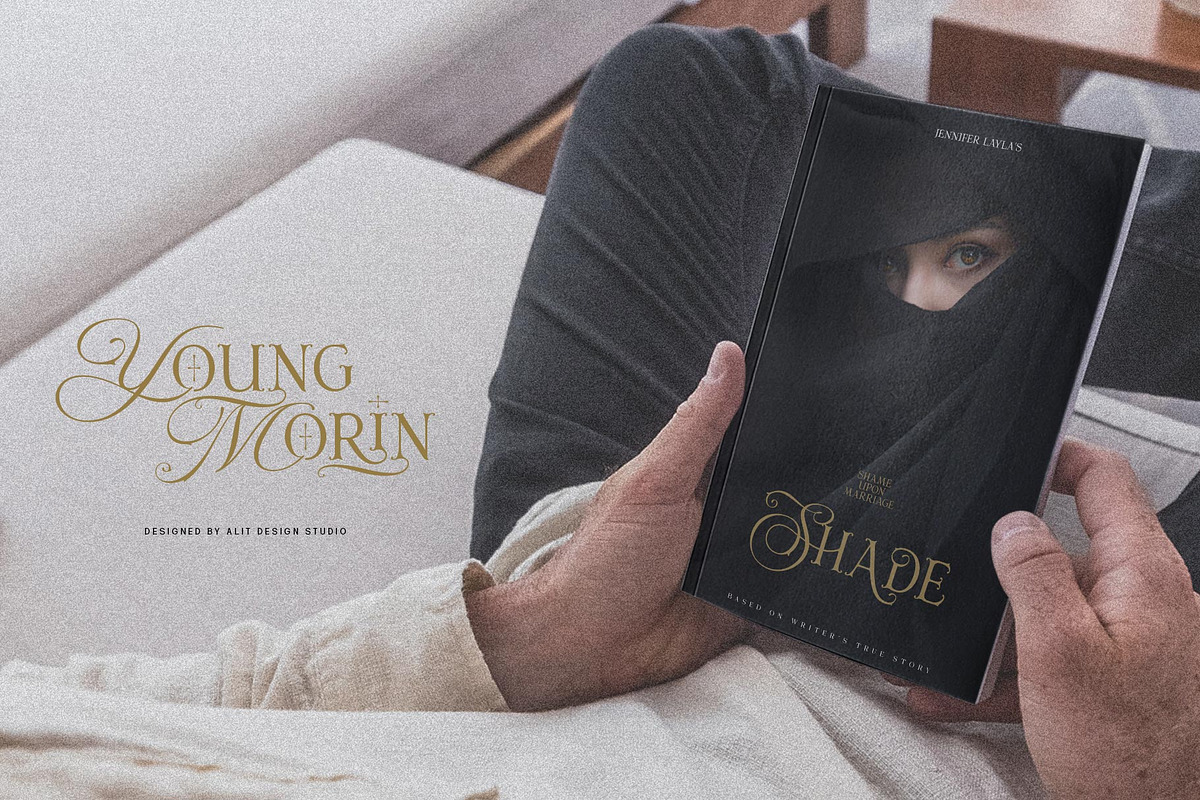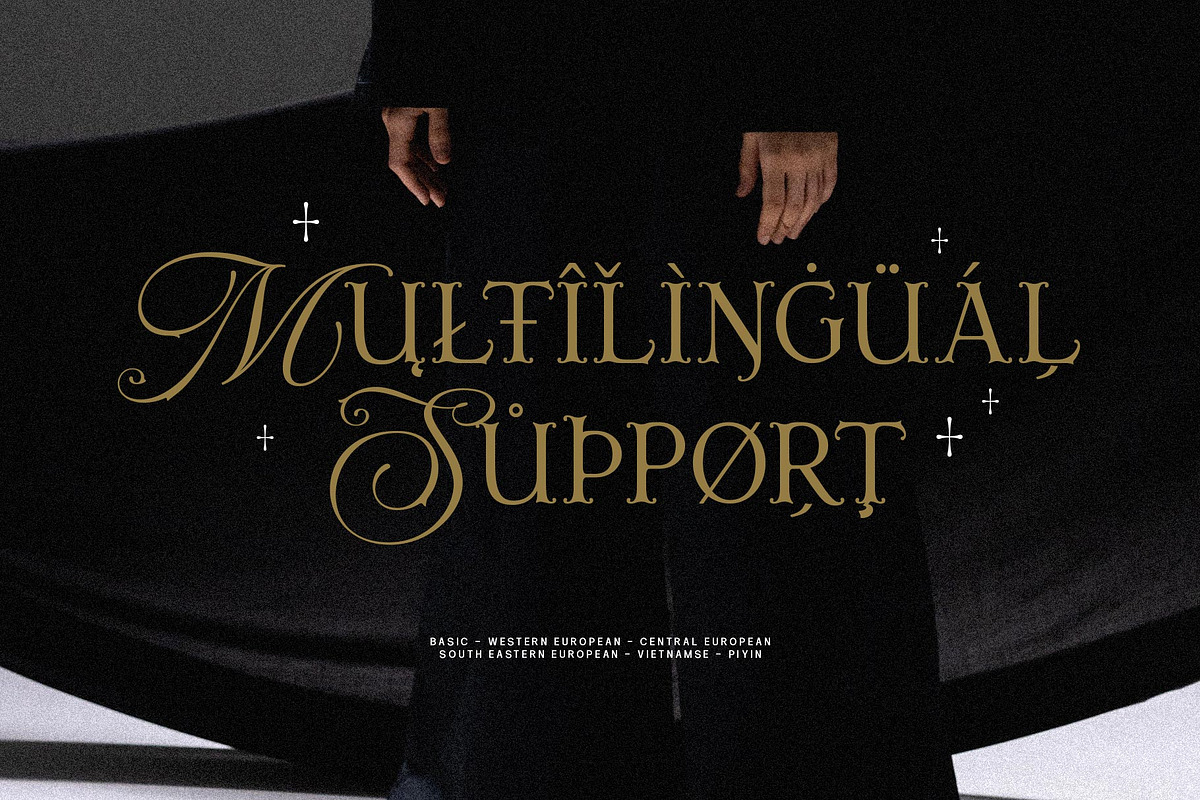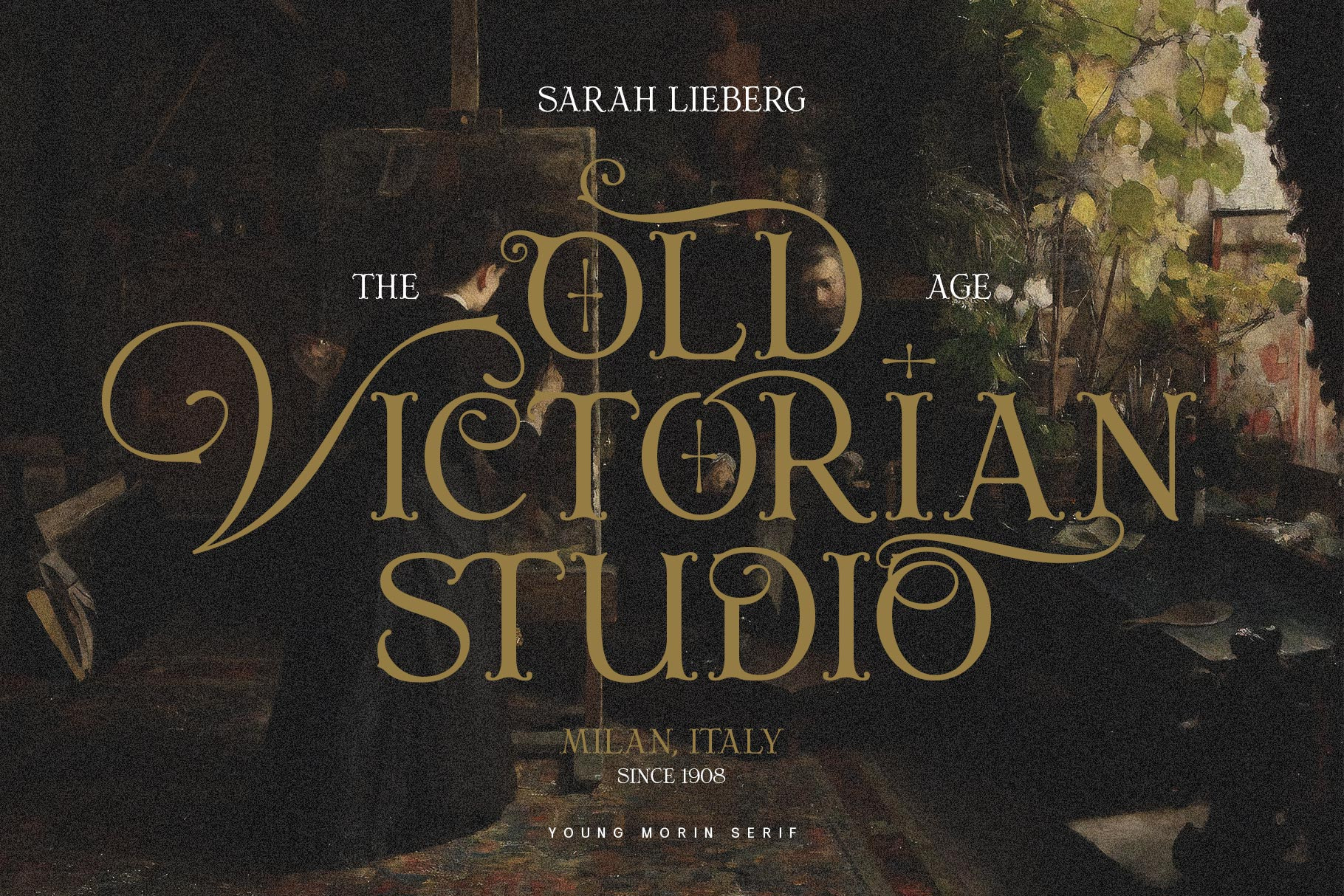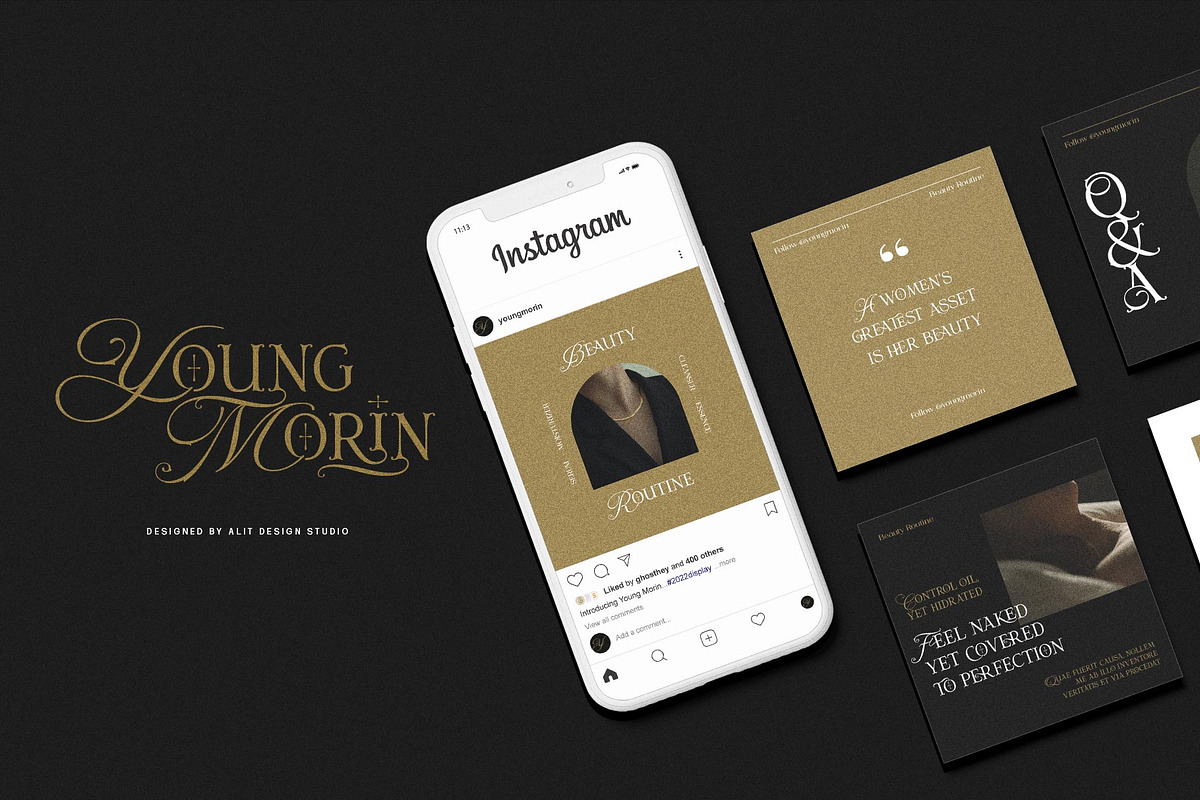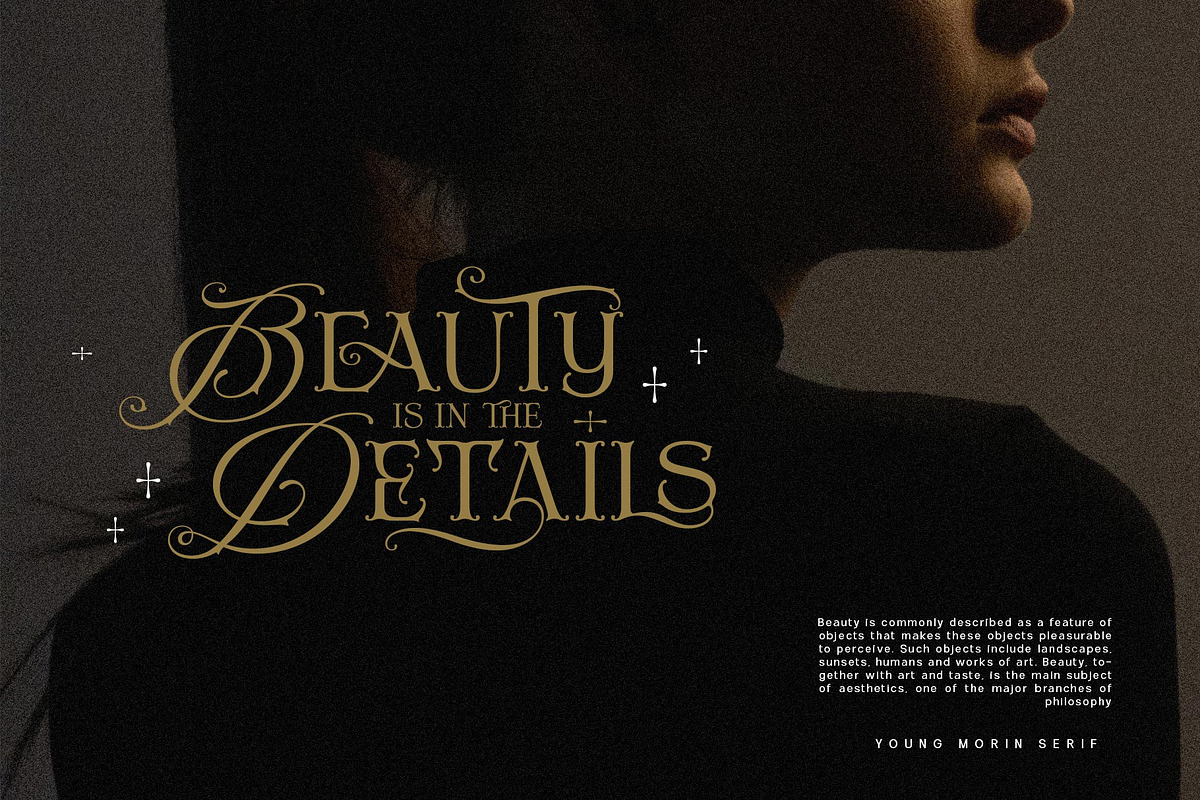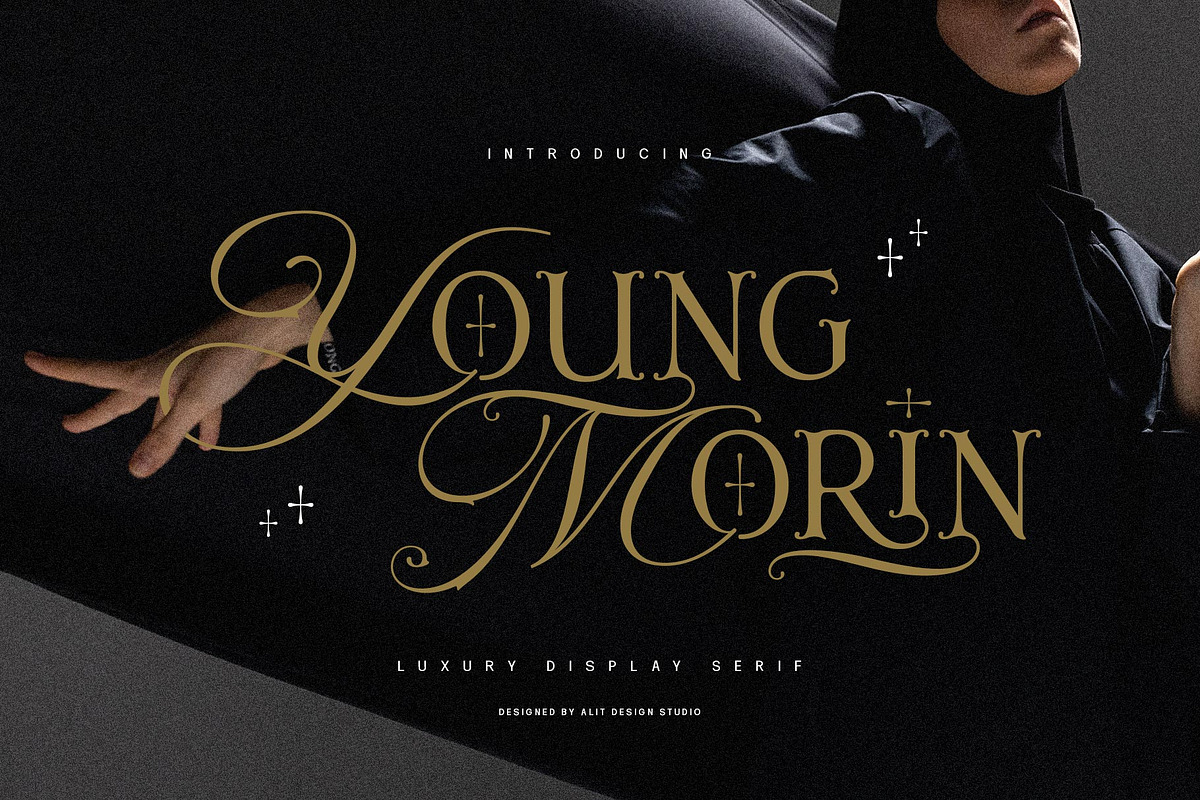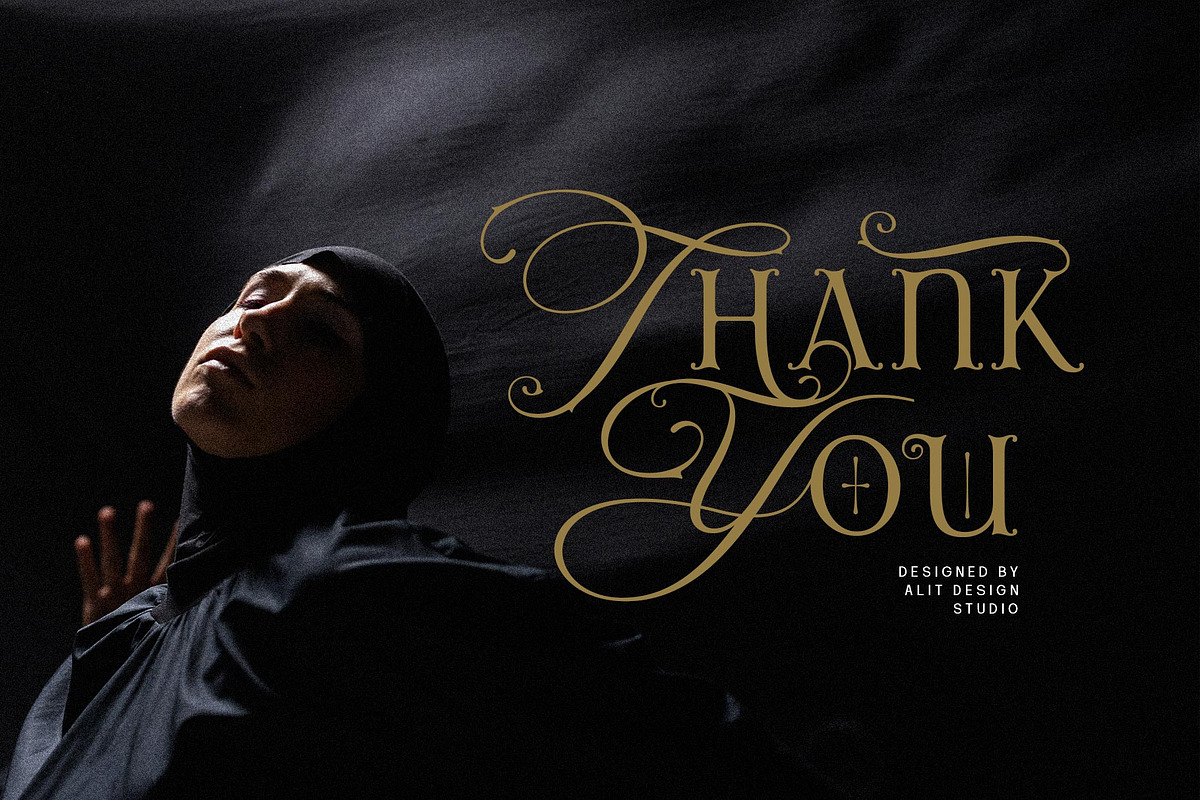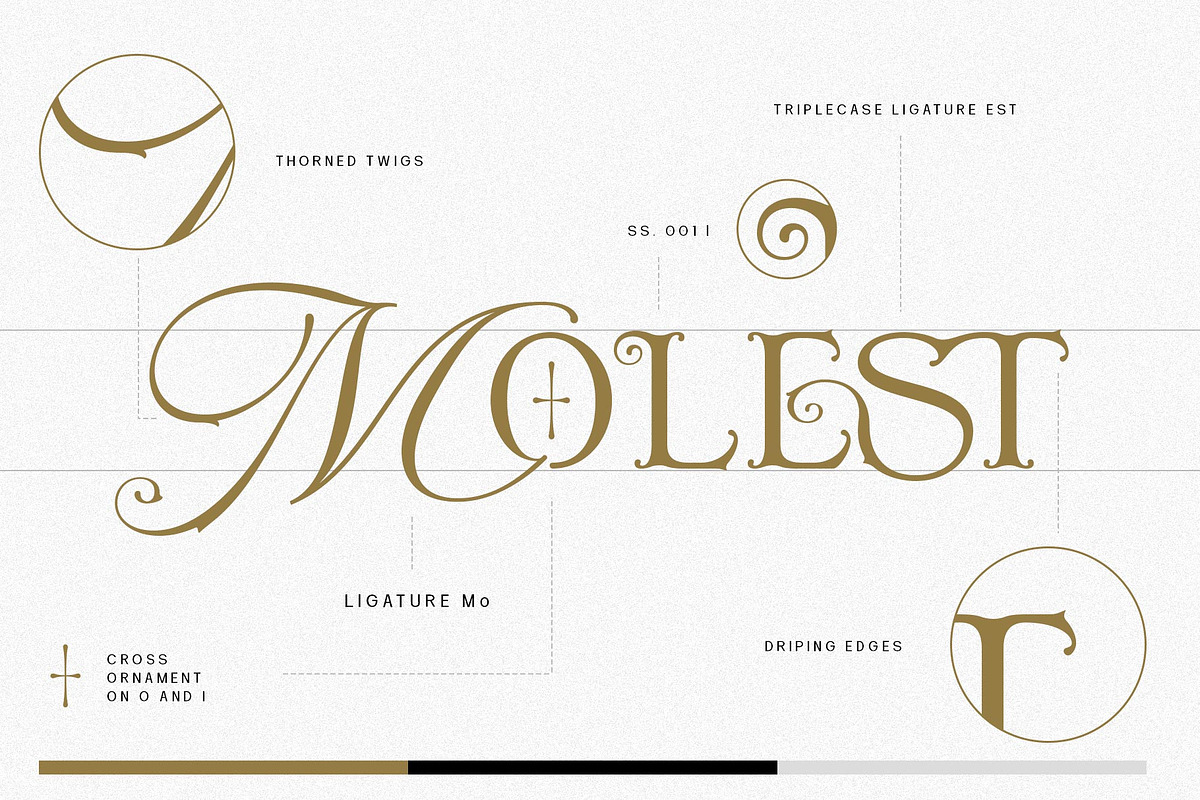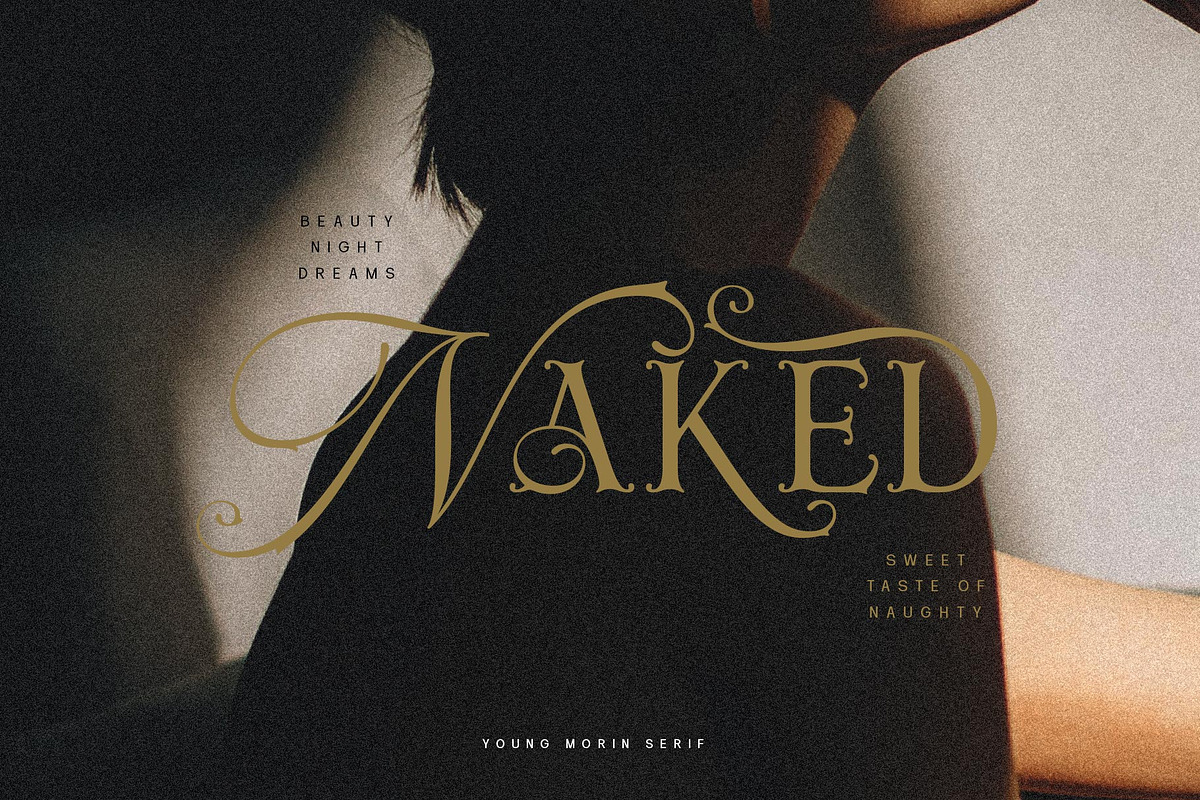
Young Morin Typeface
Presenting the Young Morin typeface from alitdesign.
Young Morin font is designed by combining elegant script font with a classic serif font style. The Young Morin font is inspired by a classic roman design that we apply modern elements according to current trends. This bold classic concept will create a design that is frightening but still looks modern and elegant. The Young Morin font is perfect for the design of young people who dare to be different and unique from the current trending design concept. Young Morin font is highly recommended to be a collection of fonts for current or future design creation.
Young Morin is perfect for magazine cover designs, brochures, flyers. Instagram ads, Canva Design and so on with unique and modern and brave concepts. besides that this font is very easy to use both in design and non-design programs because everything changes and glyphs are supported by Unicode (PUA).
The "Young Morin"contains 660 glyphs with many unique and interesting alternative options.
Language Support : Latin, Basic, Western European, Central European, South European,Vietnamese.